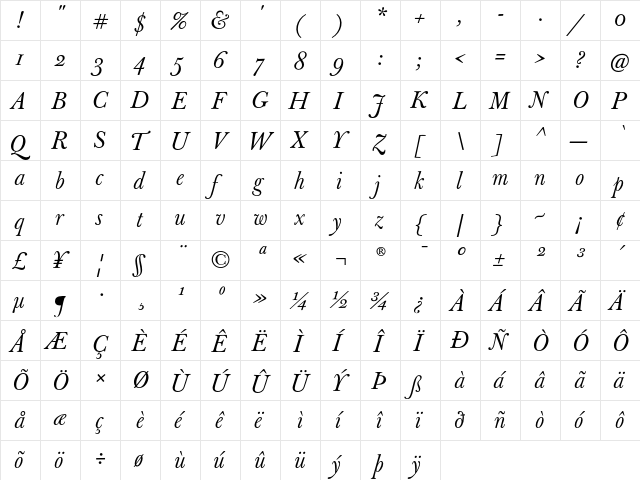
J Baskerville Italic
Design Context for J Baskerville Typeface
J Baskerville is a composed and adaptable typeface that performs quietly and consistently across a wide range of design contexts. The slanted form adds forward momentum and visual energy.
Pro Tip: Try J Baskerville for annotation and caption copy alongside an upright companion — the contrast in angle creates a dynamic but ordered typographic system.